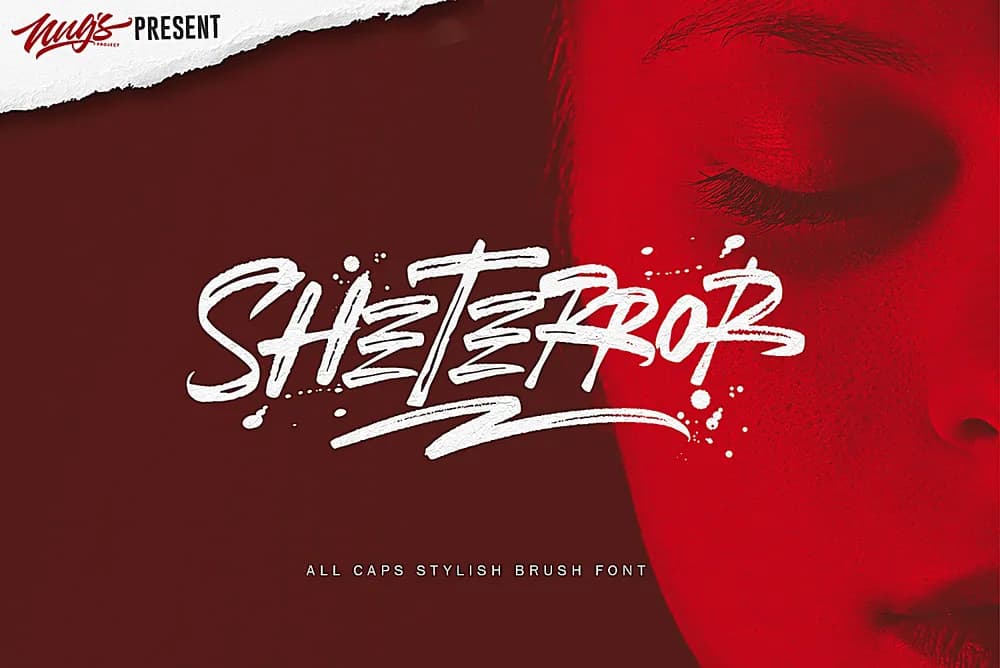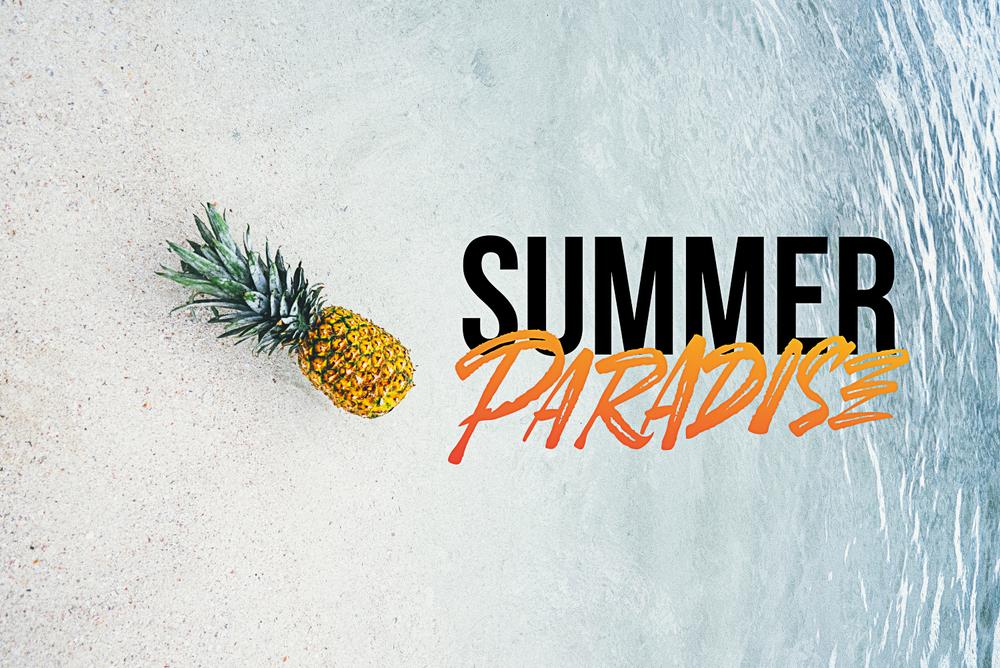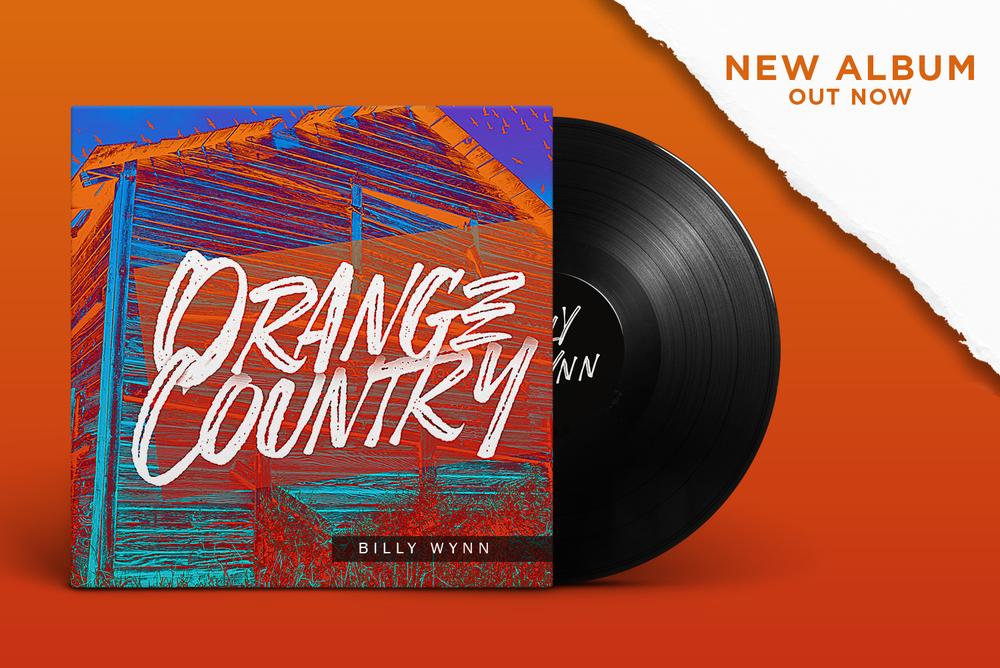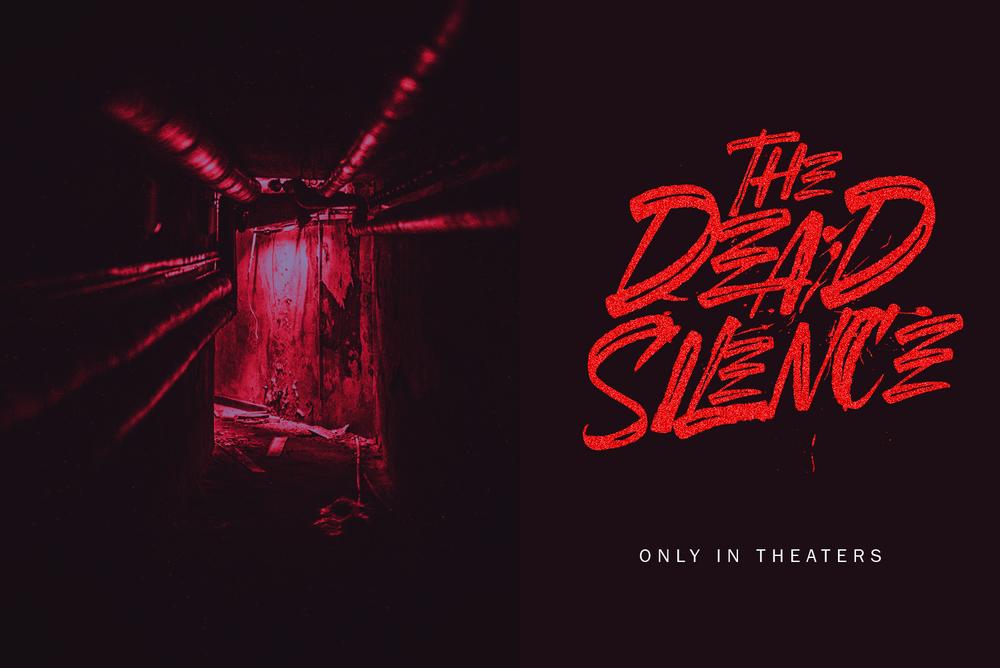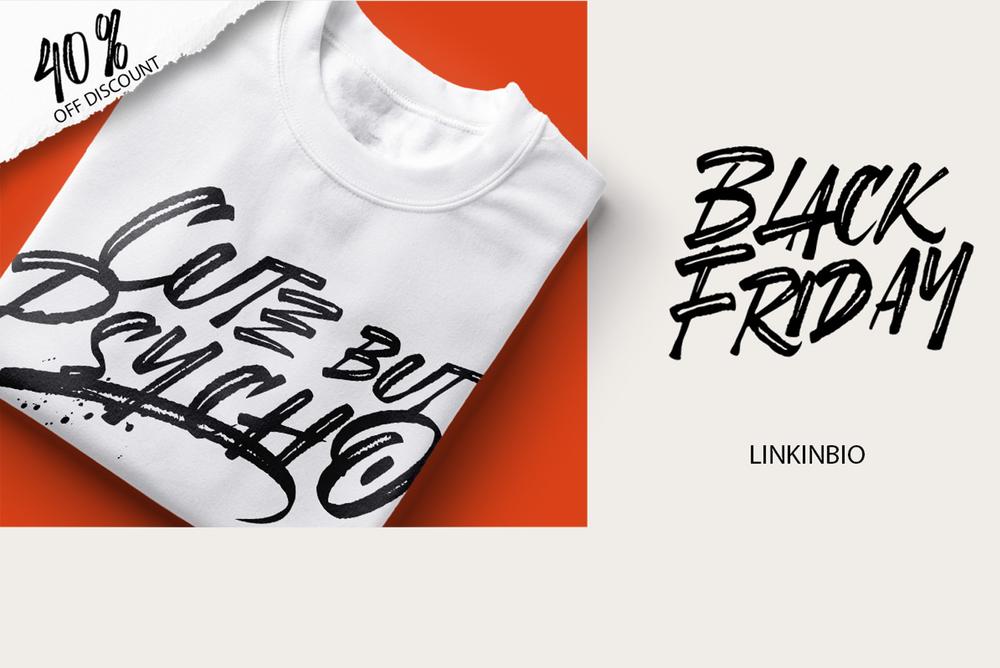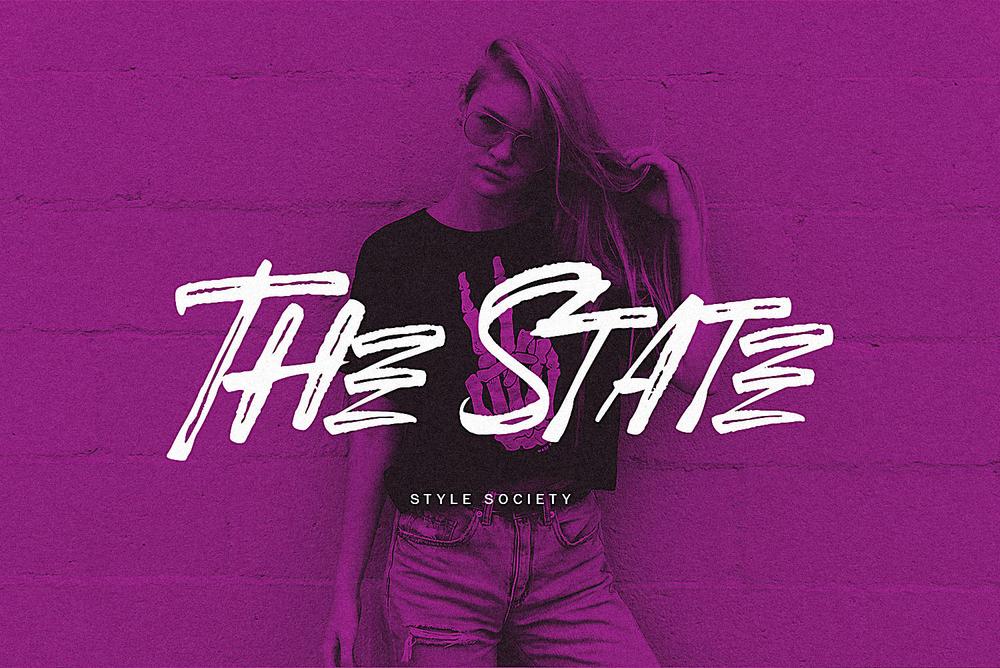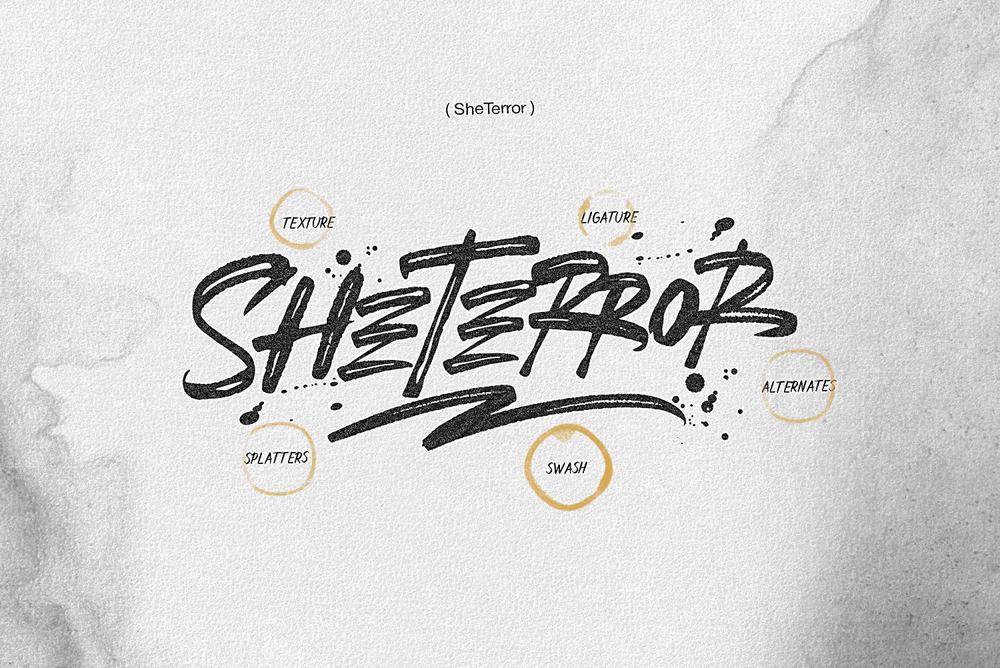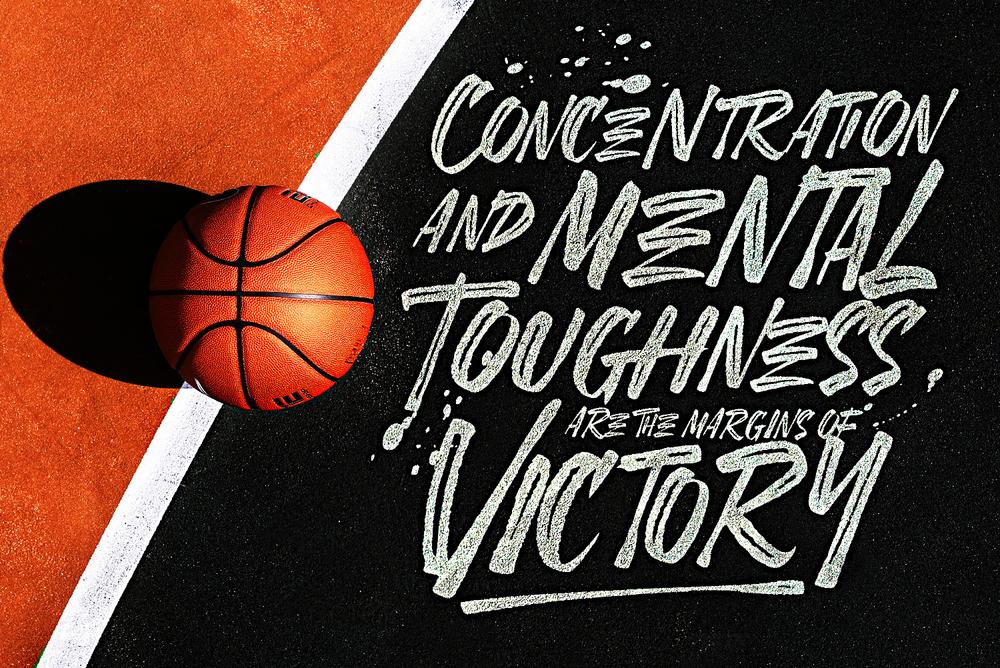
The SheTerror is a striking display font. It was inspired by the cola pen. Its raw energy can instantly transform any graphic design project in to a bold statement. It is ideal for Instagram quotes, movie, book cover,blogs and any kind of marketing material. With your purchase you get a OTF font with the following character sets: SheTerror (OTF) SheTerror Webfont